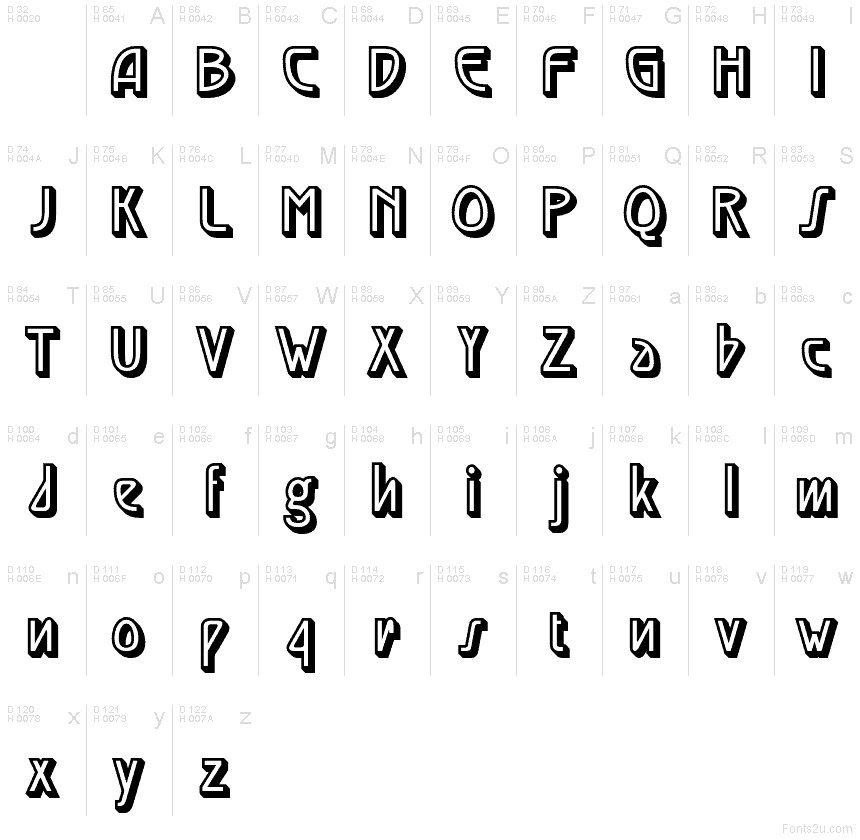
Jacelon-ExrtudeRight Demo
Jacelon ExrtudeRight font by Craft Supply Co. is a retro 3D display font with succinct style and powerful impression. This condensed design conspicuously well in headlines and other prominent short content words and phrases with its large size, geometric yet calligraphic shapes, outlines, shading, and unusual artistic elements.